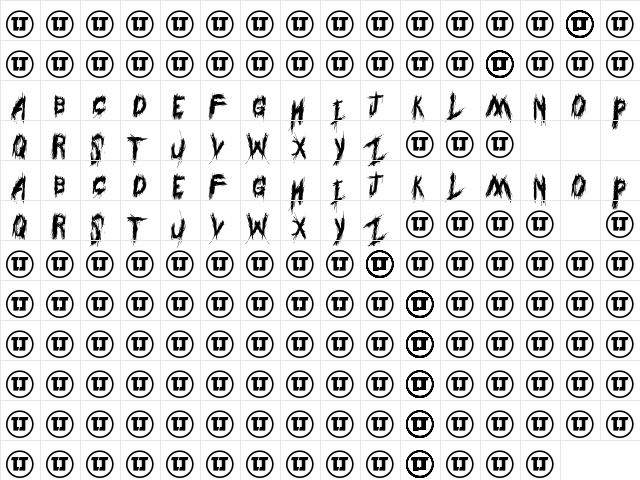
Through Struggle Regular
| Foundry | LJ-Design Studios |
| Designer | Luis Jaramillo |
Design Context for Through Struggle Typeface
Through Struggle embraces imperfection — its rough, textured character adds raw authenticity to designs that want to feel lived-in and unconventional.
Suited to punk-influenced zines, underground music branding, streetwear, and raw, anti-corporate design.
Pro Tip: Pair Through Struggle with intentionally raw or lo-fi design elements. Fighting against it with overly polished surroundings will undermine its personality.